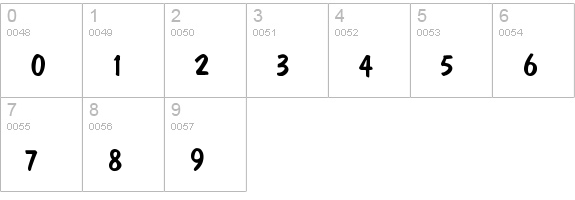
Introducing Domcas font, a stunning typeface that effortlessly blends elegance with modernity. With its sleek lines and graceful curves, Domcas exudes sophistication and style, making it the perfect choice for a wide range of design projects. This versatile font is ideal for branding, logos, headlines, and more, adding a touch of refinement to any design. What sets Domcas font apart is not just its beauty, but also its accessibility. This exquisite typeface is available for free download at FontsMarket.com, allowing designers and creatives to easily incorporate it into their work without any cost. Whether you're a seasoned professional or a budding designer, Domcas font is sure to elevate your projects and leave a lasting impression. Don't miss out on the opportunity to enhance your designs with the timeless charm of Domcas font. Download it for free today and unlock a world of creative possibilities!